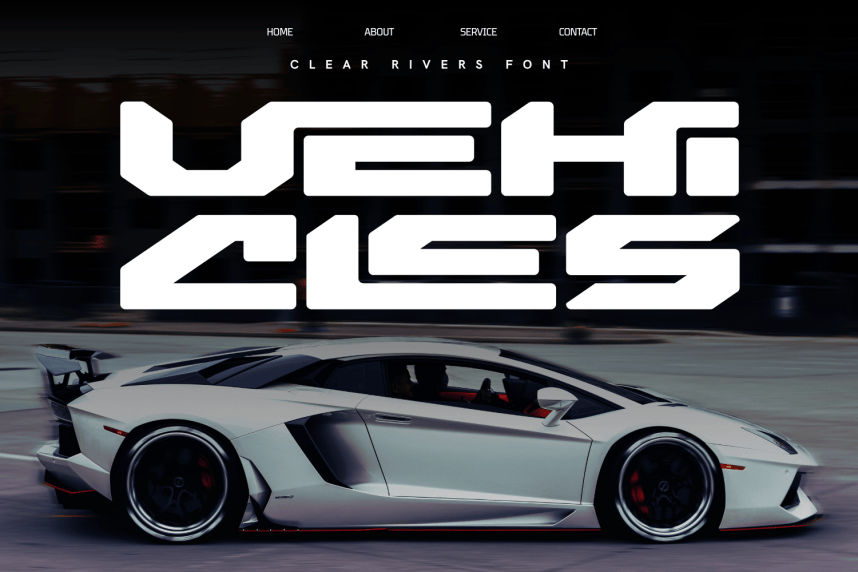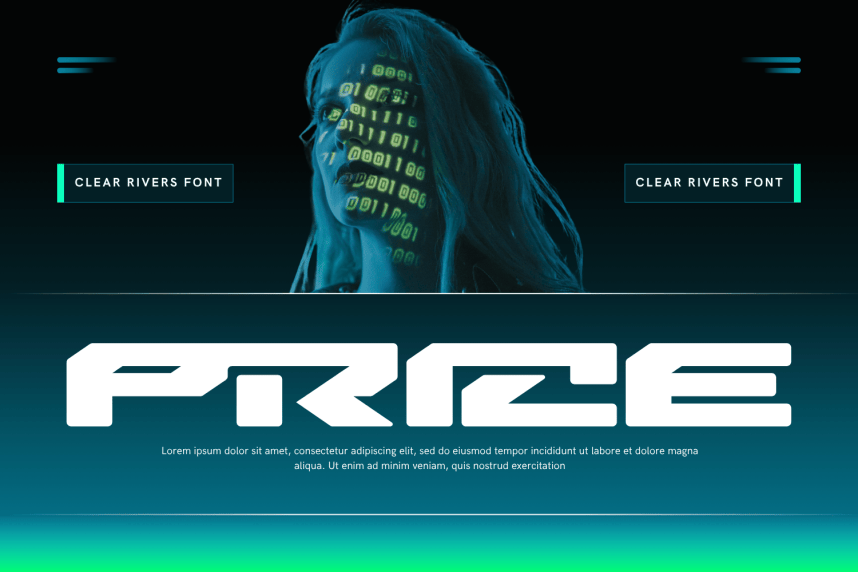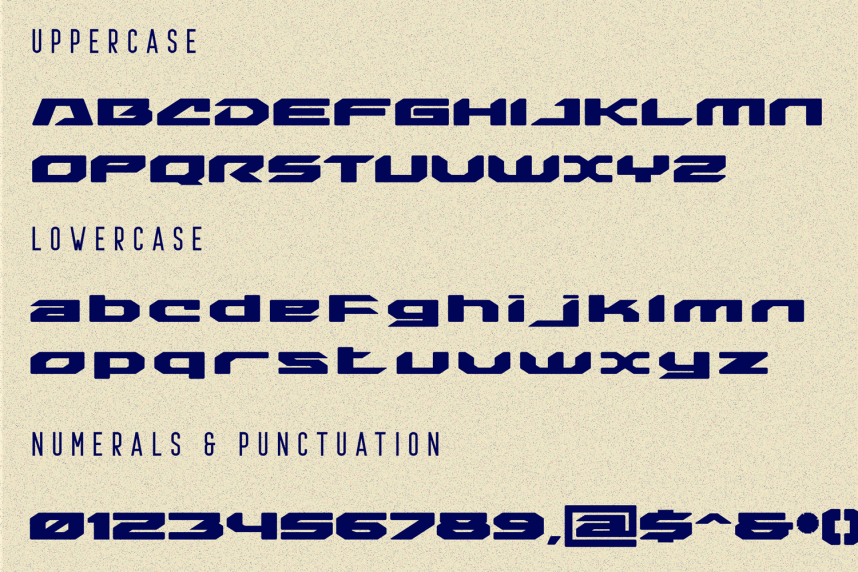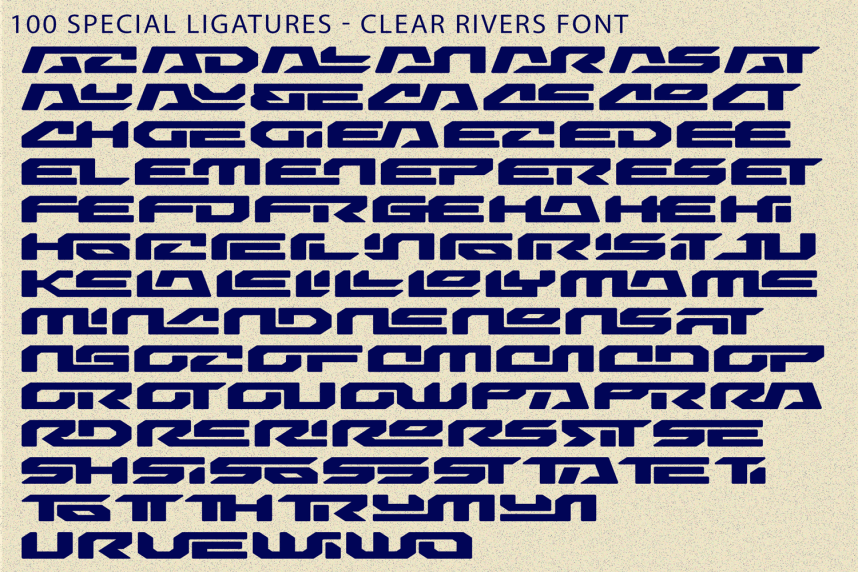
Clear Rivers – Futuristic Font – Futuristic Sci-Fi Techno & Chamfered Extended Display Font is a high-impact, futuristic display font engineered at the dynamic intersection of aerospace geometry, heavy mecha aesthetics, and cutting-edge gaming typography. Defined by its ultra-wide extended stance, aggressive 45-degree chamfered corners, and aerodynamic cutouts, this font commands instant visual authority across modern digital layouts.
Designed to give display titles and headlines an unyielding, high-tech presence, CLEAR RIVERS delivers a powerful sense of speed, mechanical precision, and galactic exploration. Its heavy geometric structure and sharp angular details make it the definitive typographic choice for esports team brandings, sci-fi gaming titles, futuristic movie posters, automotive graphics, techwear apparel design, and high-concept logos.
🔤Features:
Uppercase & Lowercase Letters
Around 100 Special Ligatures & Alternates
Numerals & Punctuation
Accented Characters for multilingual support
🔤About 100 ligatures combined with Stylistic Alternates Font:
AC AD AL AN AR AS AT AU AV BE CA CE CH CO CT DE DI EA EC ED EE EL EM EN EP ER ES ET FE FO FR GE HA HE HI HO IE IC IL IN IO IR IS IT JU KE LA LE LI LL LO LY MA ME MI NC ND NE NG NO NT NS OC OF OM ON OO OP OR OT OU OW PA PR RA RD RE RI RO RS RT SE SH SI SO SS ST TA TE TH TI TO TR TT UM UN UR VE WI WO